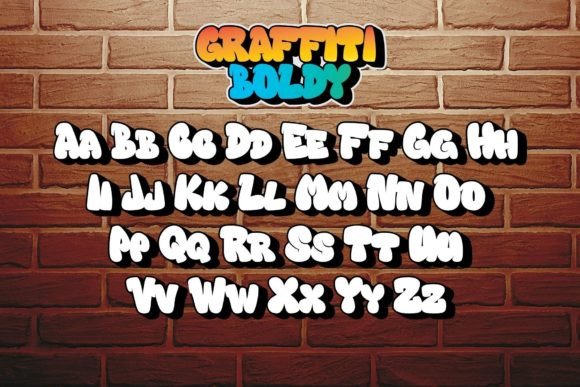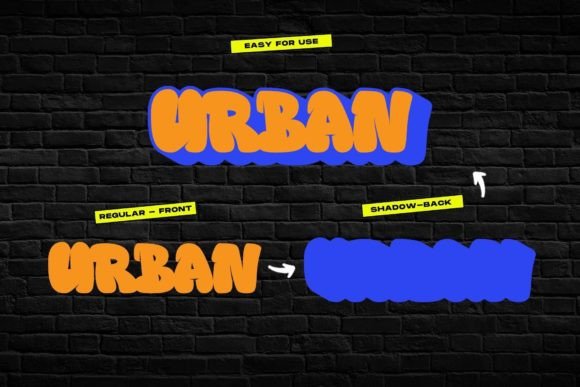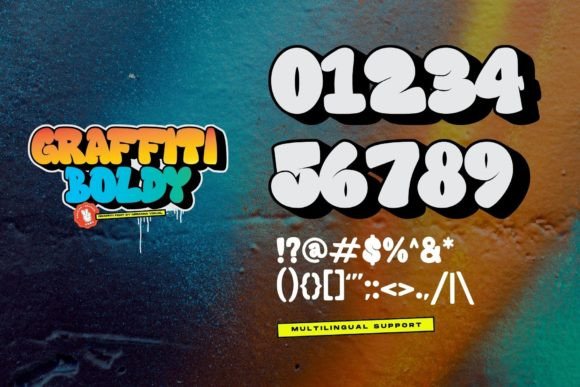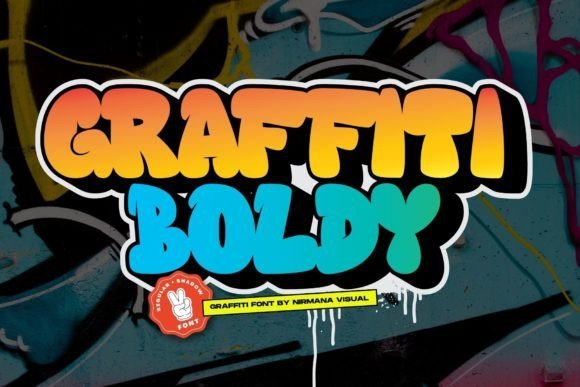
Introduction to Graffiti Boldy Font
Graffiti Boldy is a fun, urban-style display font.
Key Features of Graffiti Boldy Font
Why Choose Graffiti Boldy Font?
Graffiti Boldy Font offers exceptional quality and versatility, making it a valuable addition to your design toolkit. Whether you’re creating for personal projects or commercial use, Graffiti Boldy Font delivers professional results.